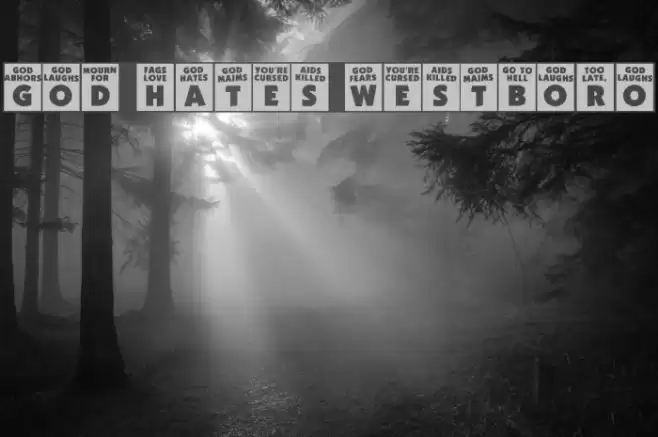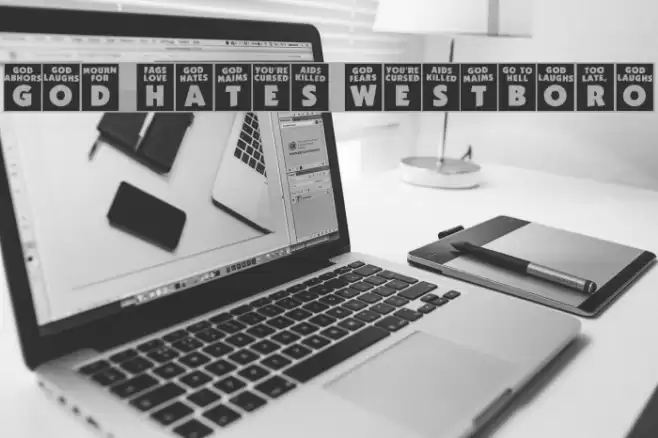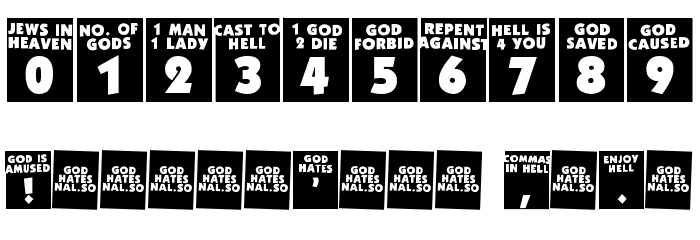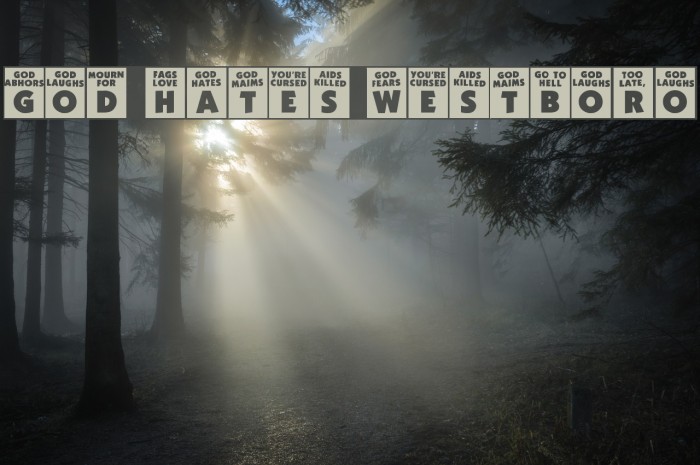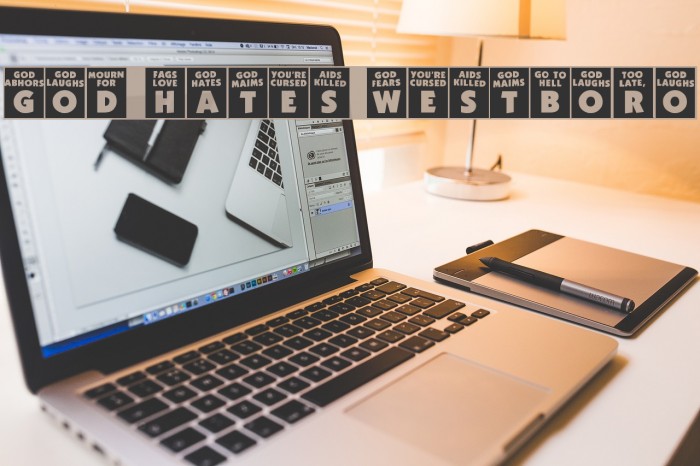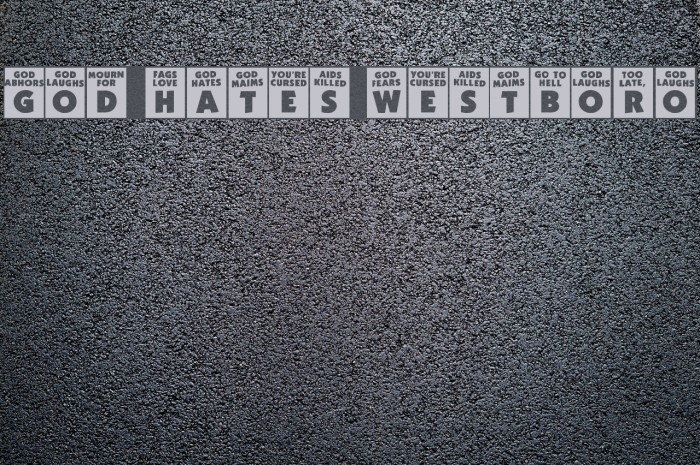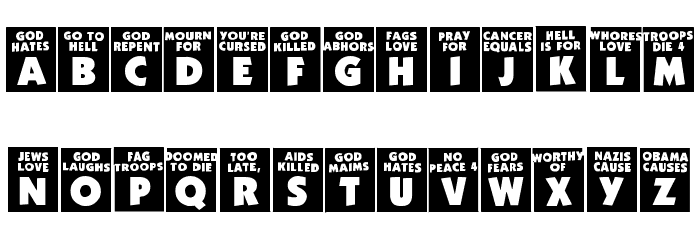
God Hates Westboro Font
God Hates Westboro Description
A bold, geometric sans-serif font with uppercase and numeric characters set in white on solid black rectangles, featuring uniform stroke width, high legibility, and blocky letterforms. The font is all-caps, with consistent proportions and minimal contrast, designed for maximum impact and visibility.
Bold, geometric sans-serif with blocky, high-impact uppercase letters from Uncategorized fonts.
- Proposed Projects: Protest signs, posters, attention-grabbing headlines, banners, impactful graphic design.
- Character Spacing: Tight
- Overall Style: Decorative, Modern, Protest
- Use Case: Headlines, Posters, Signs, Banners